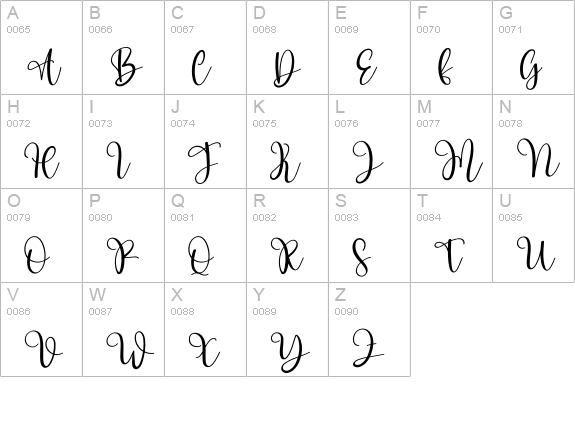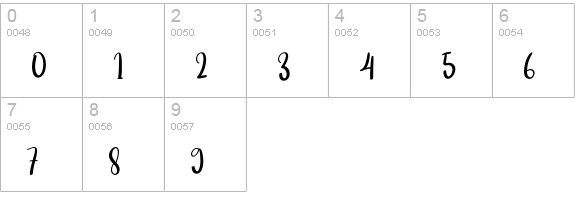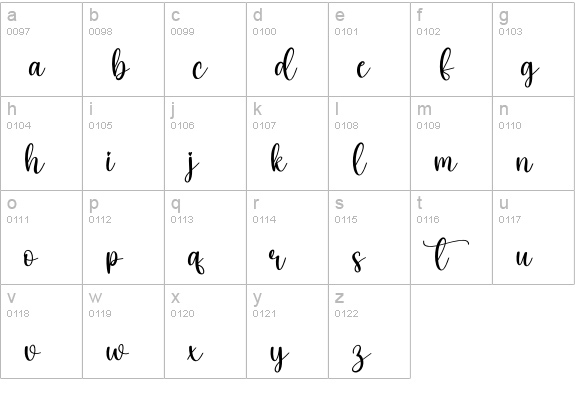
Mother is a free for personal use font in the Script > Handwritten category, designed by scratchones. It has been downloaded 14 times and is available for Windows, Mac and Linux.
Mother font is a beautifully crafted typeface that exudes elegance and sophistication. With its sleek lines and modern curves, this font is perfect for adding a touch of class to any design project. Whether you're creating a logo, designing a website, or working on a branding campaign, Mother font is sure to make a lasting impression.